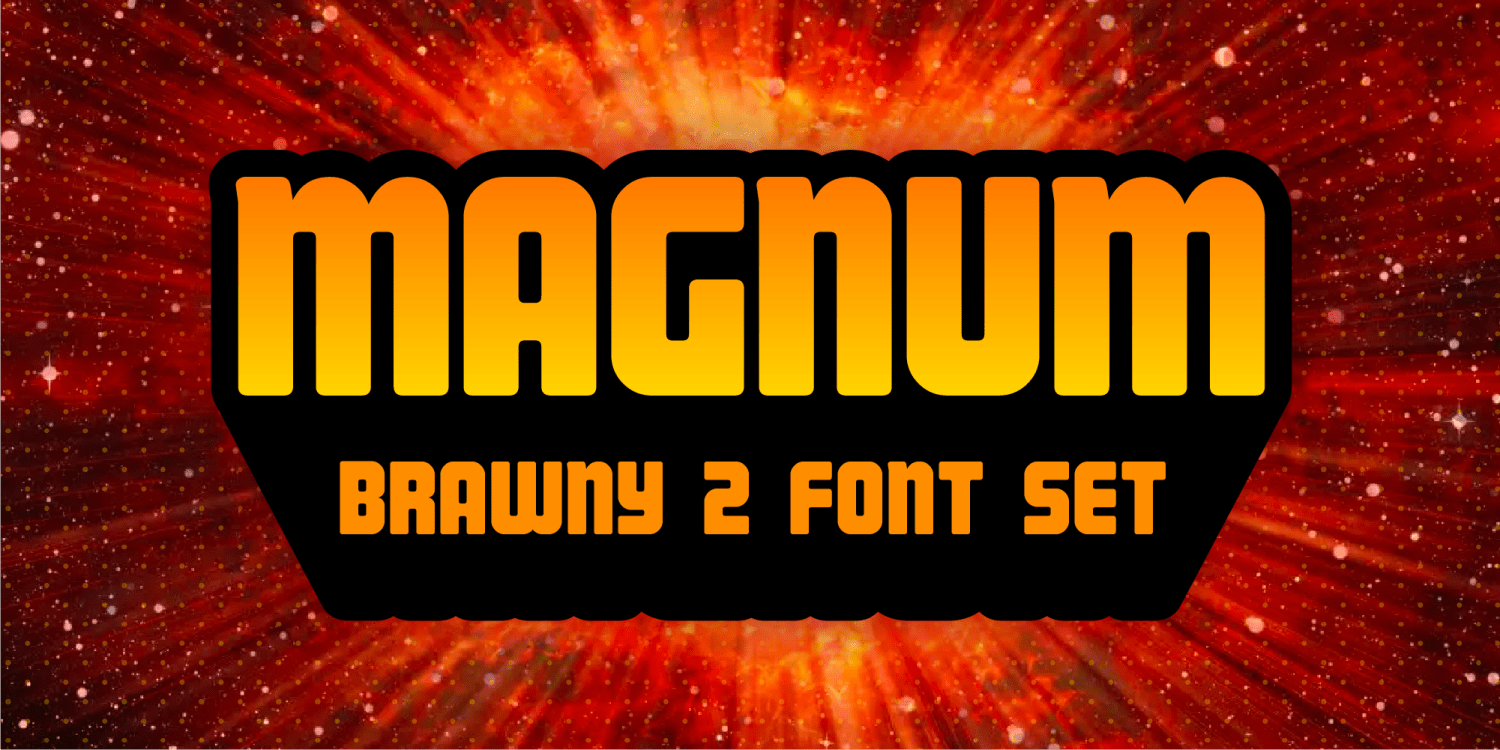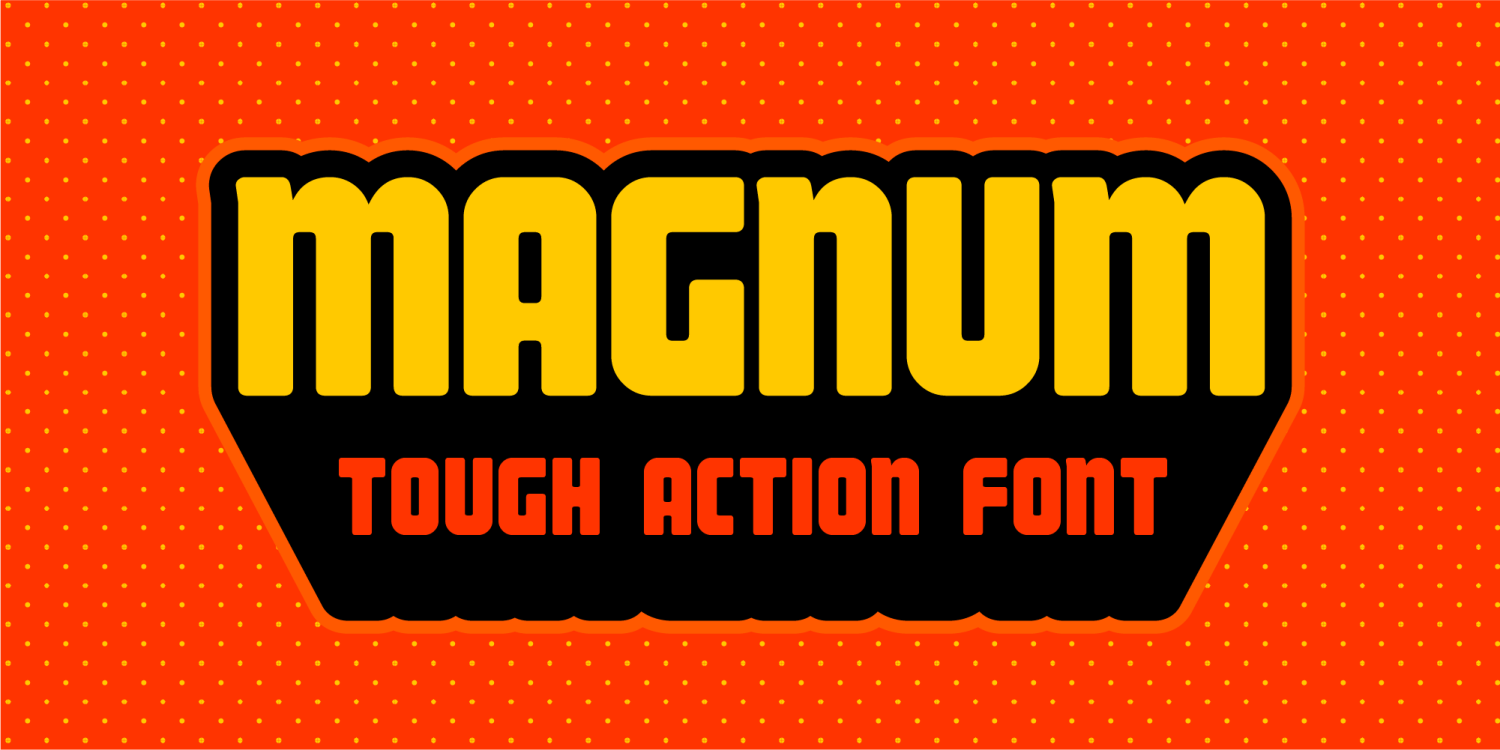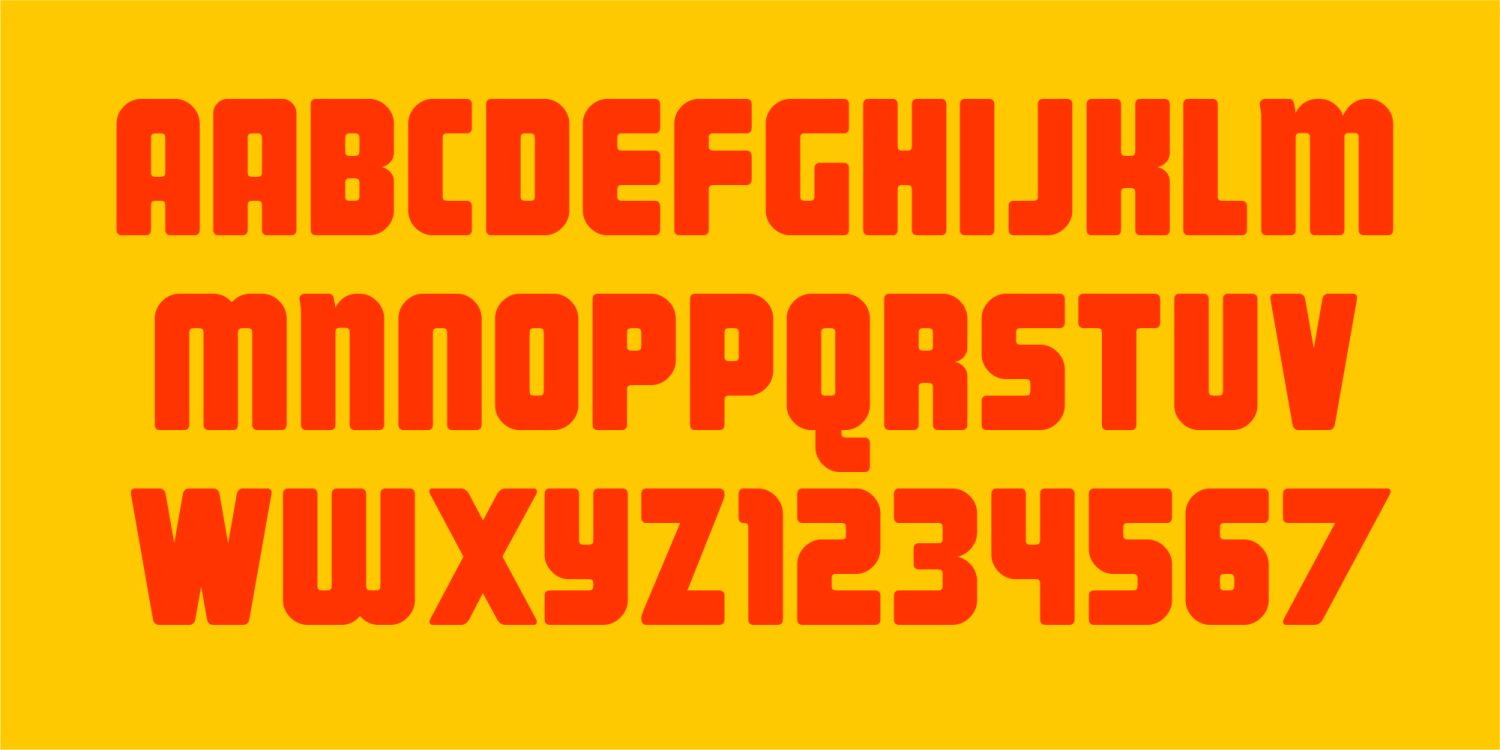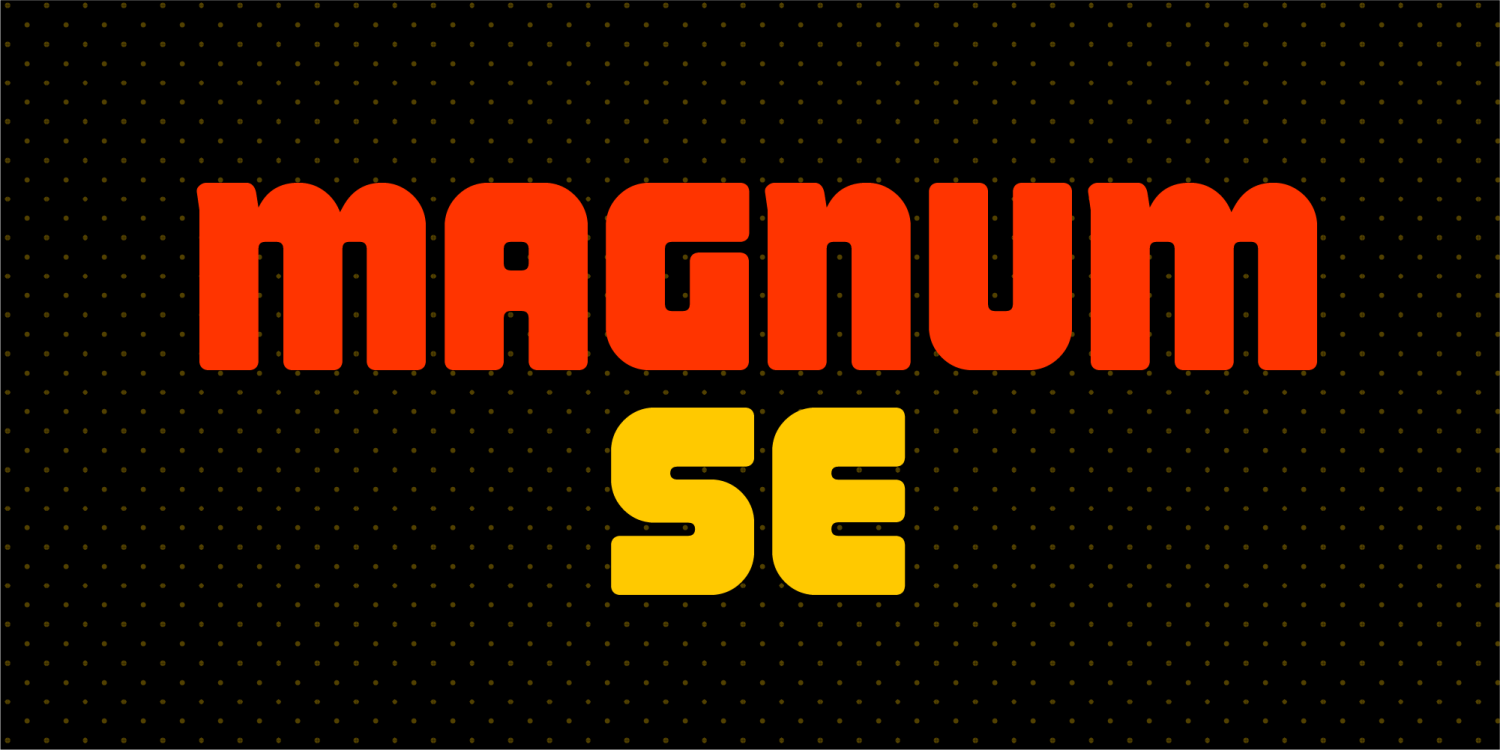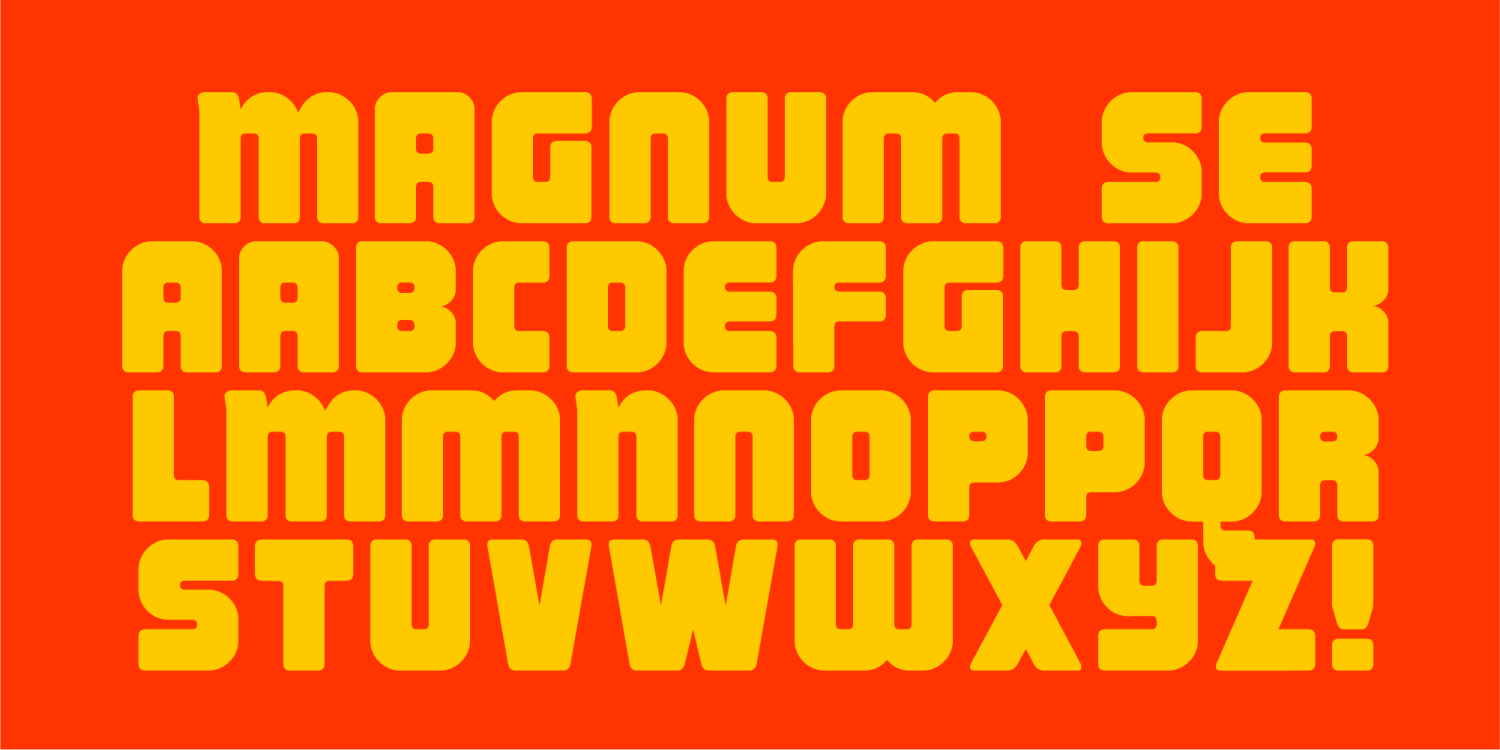
Magnum is such a tough word. Whether you are talking about a mustached private investigator, a powerful handgun or a durable latex condom, you use this word in a sentence and chances are the conversation is going to be a manly one. Choosing the name of this font was easy. It is a big, bold, blockbuster that you are going to want to use to headline your term paper on The Art of Barfighting, or even an invitation to a lumberjack convention. Girls, let me tell you right now, don't go using this thing unless you are ready to get down to some serious font business.